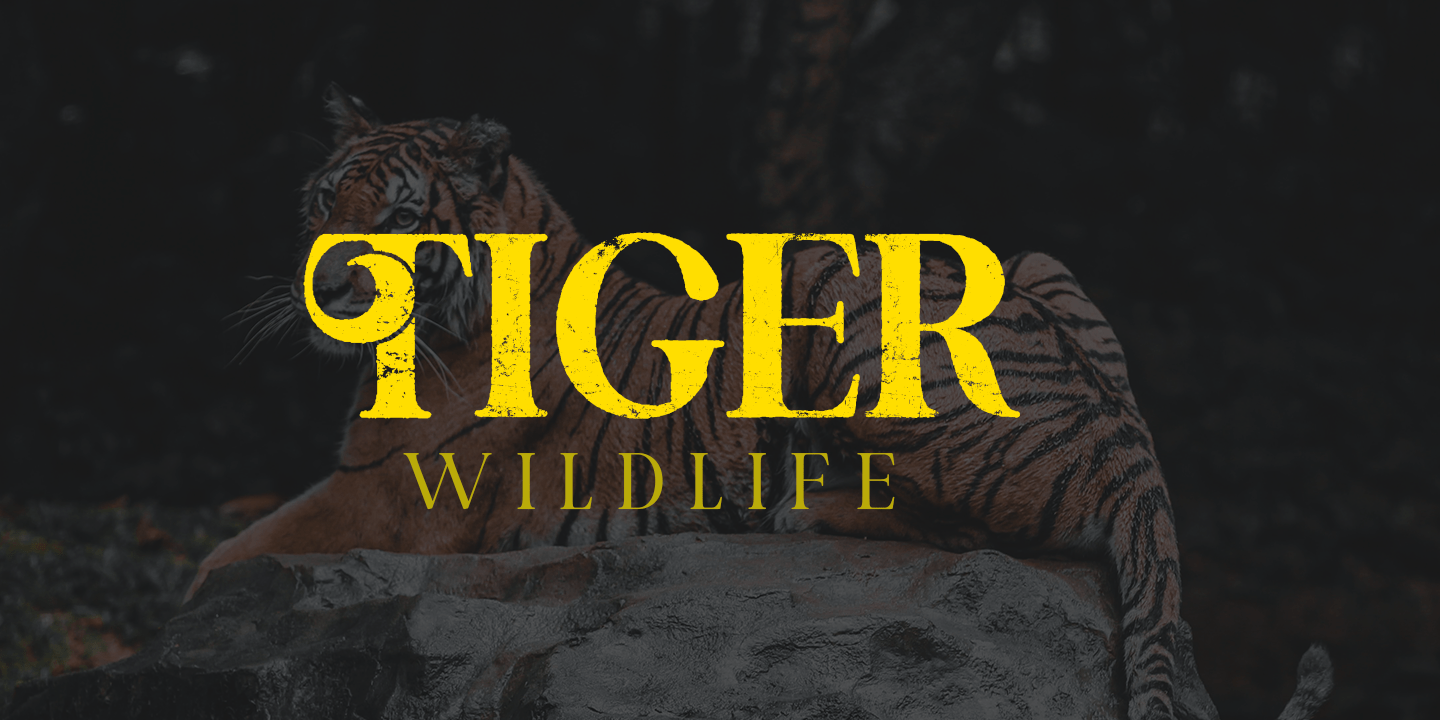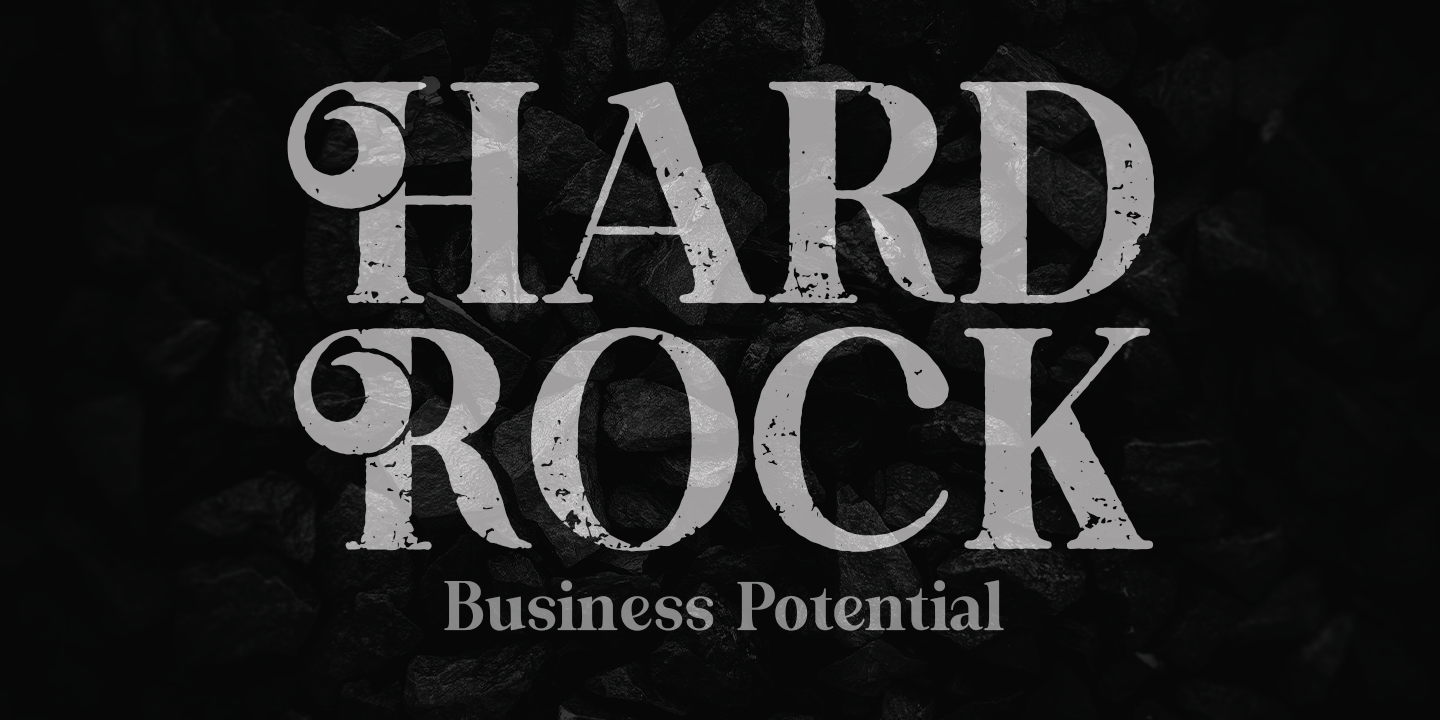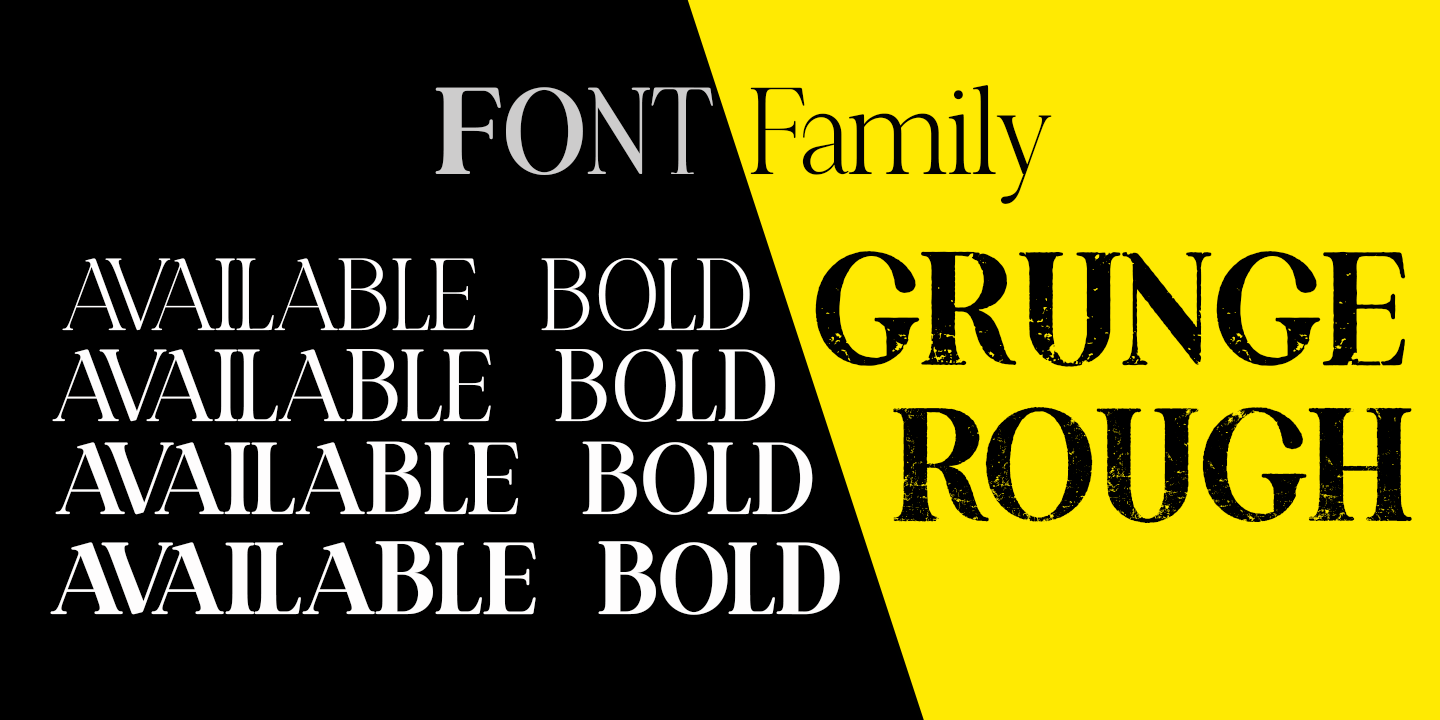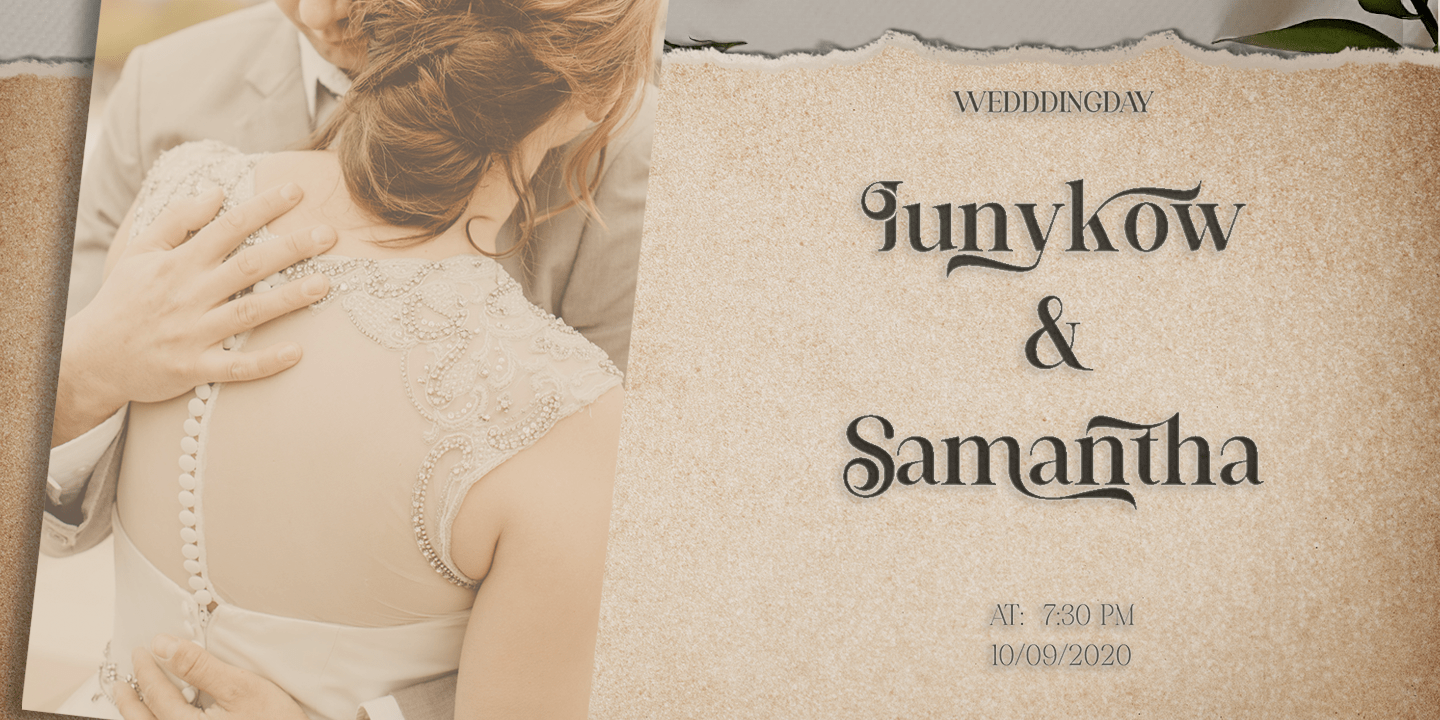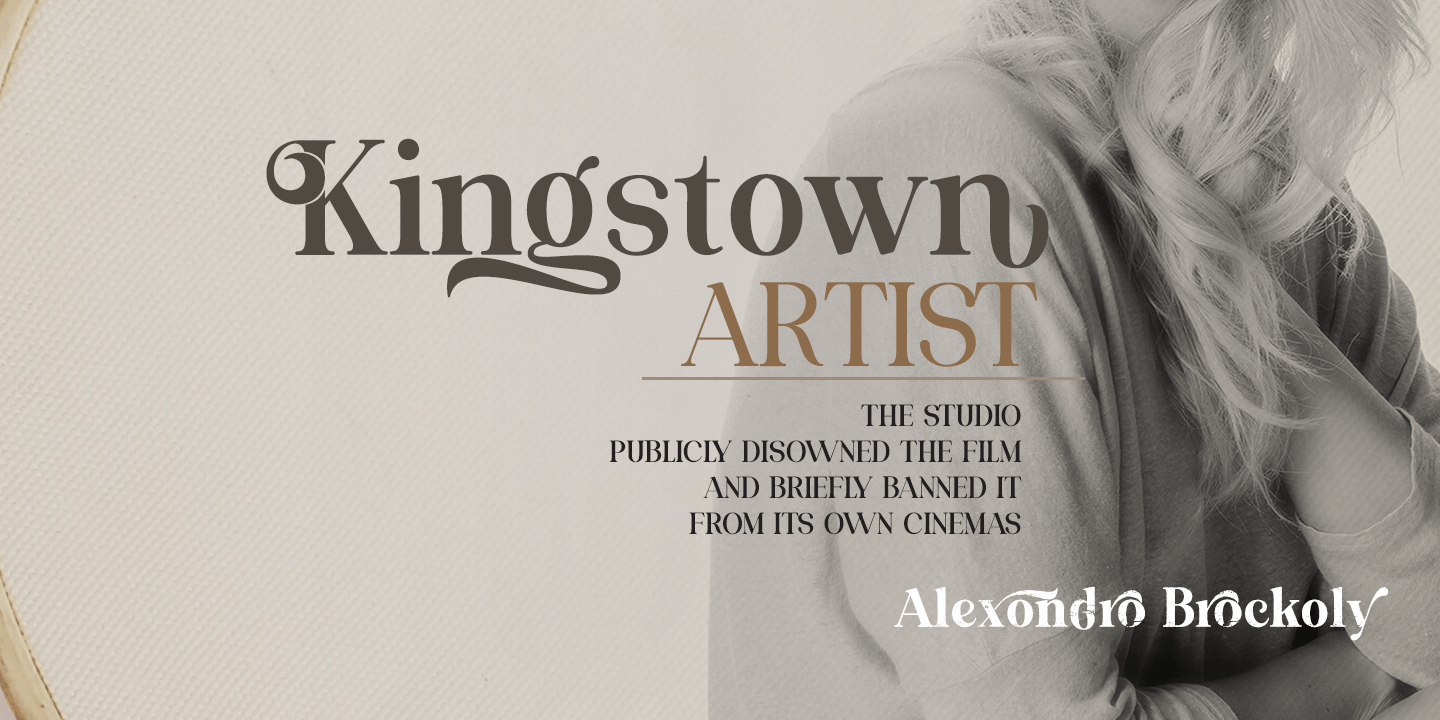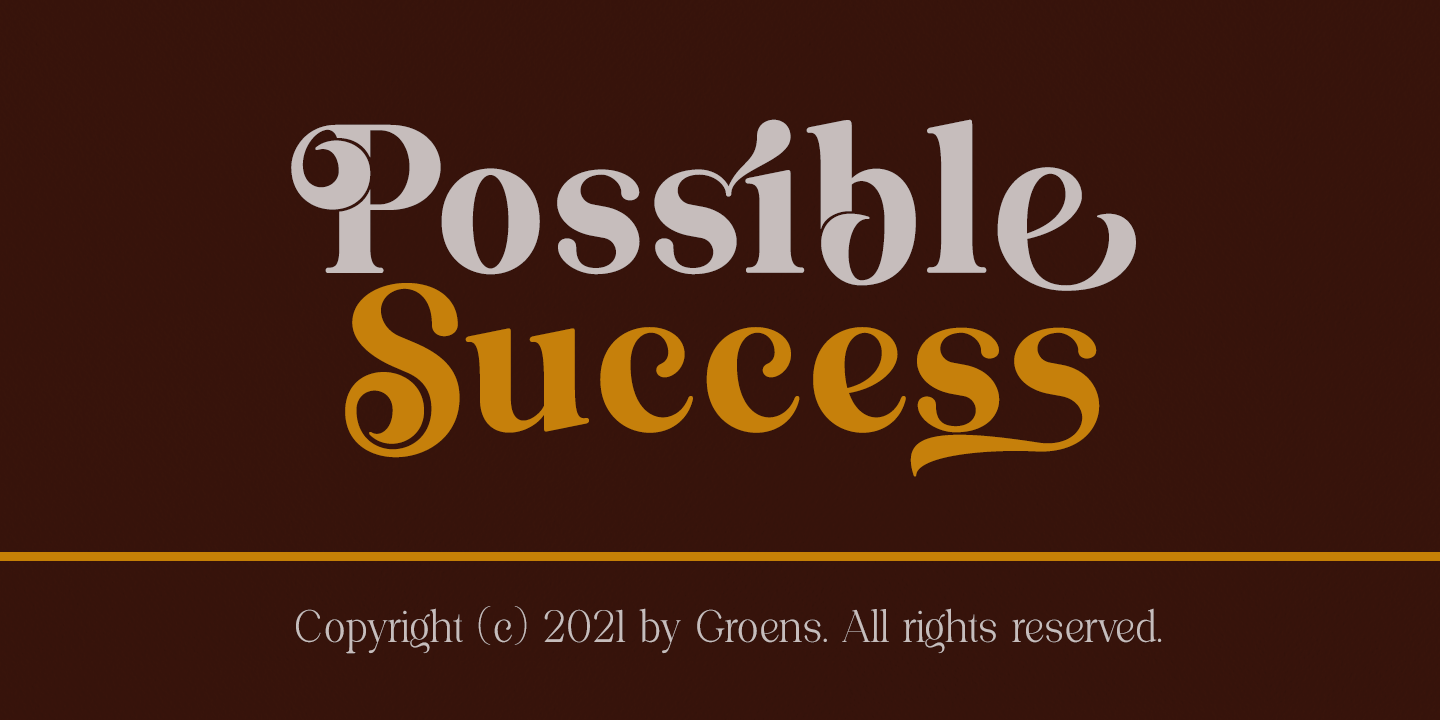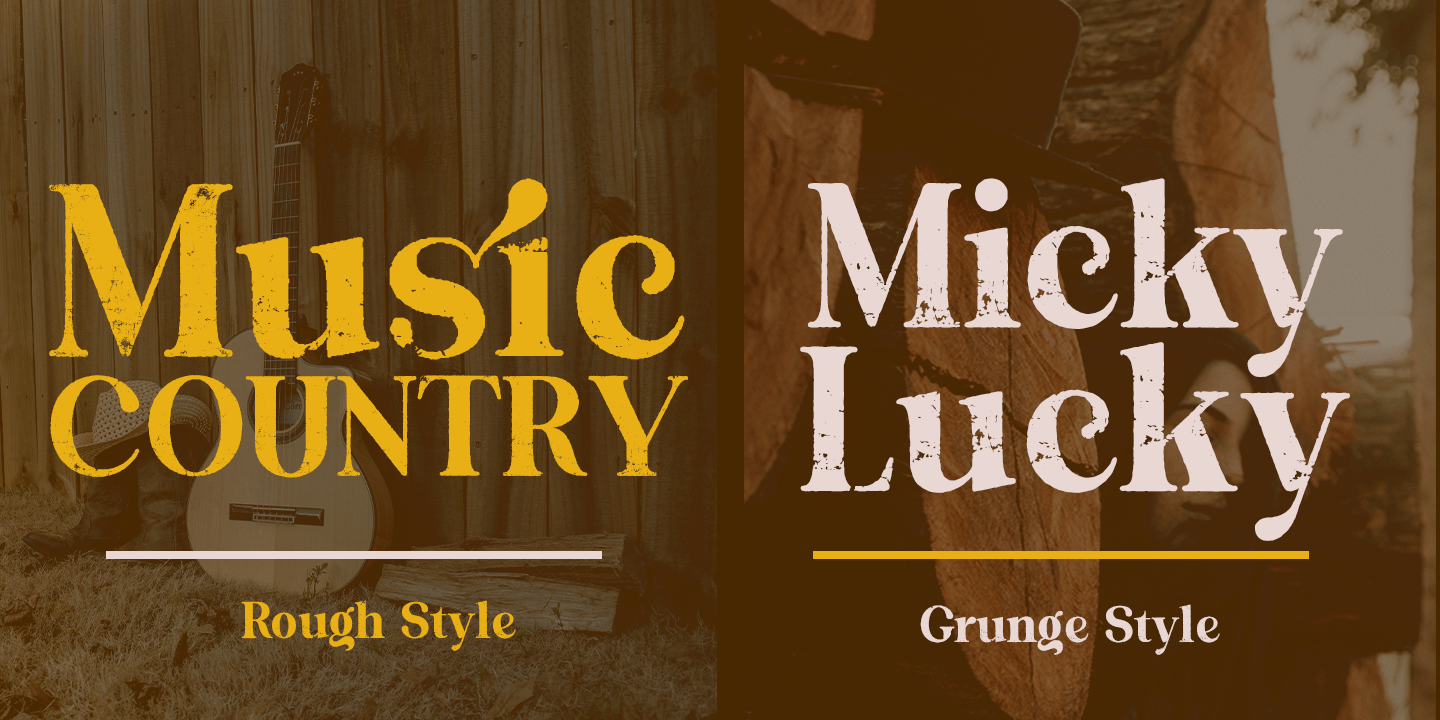
Carrington
Font Family by Groen Studio
Carrington is a Serif font family, which has a strong and bold character with eight variants, Carrington gives a clear and elegant look to logos, quotes, advertisements and more.
Carrington is a versatile typography filled with the character you want, Carrington has standard styles, Stylistic Alternates and ligatures. and includes upper and lower case letters, numbers and punctuation marks.
Carrington works great in any branding, logos, magazines, films. The different weights give you full range to explore a whole host of applications, while the outlined fonts give a real modern feel to any project.